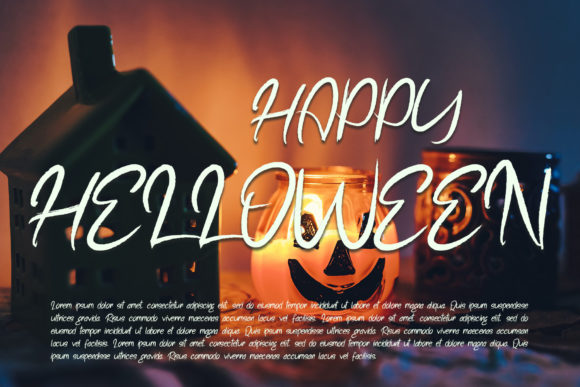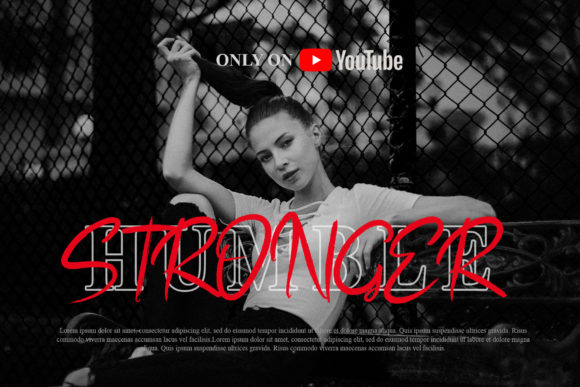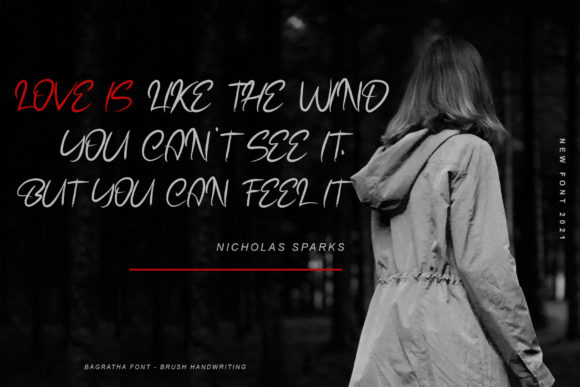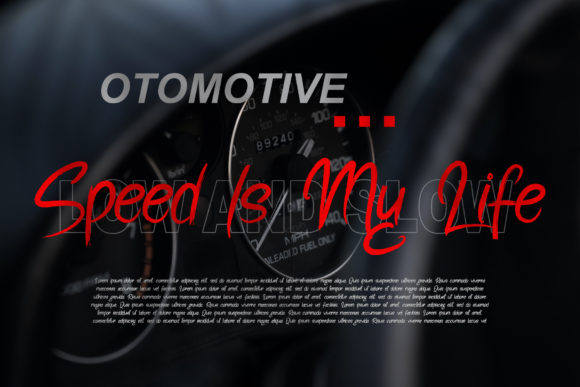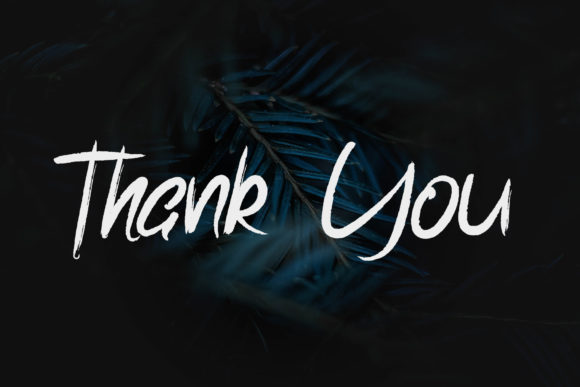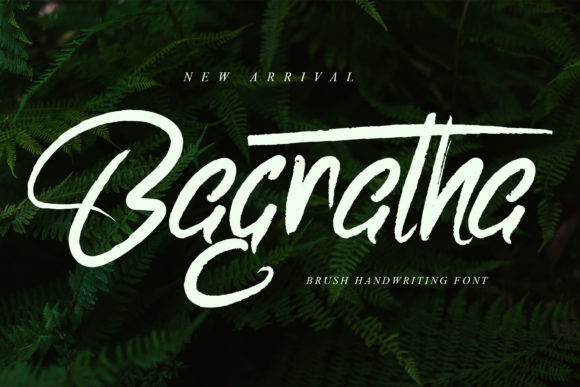
Bagratha Font: Elevate Your Designs with a Cool, Brushed Display Font
In the world of typography, a font can make or break a design. It’s the foundation upon which the entire visual aesthetic is built. For designers and crafters looking to add a unique touch to their creations, the Bagratha font is an excellent choice. This cool, brushed display font has the potential to elevate any project, regardless of the topic or theme. In this article, we’ll dive into the world of Bagratha font, exploring its features, benefits, and uses.
What is Bagratha Font?
Bagratha font is a stylish, brushed display font designed to add a touch of personality to any design. Its unique, hand-crafted aesthetic gives it a distinctive look that’s sure to grab attention. The font’s brushed texture adds a sense of warmth and tactility, making it perfect for designs that require a human touch.
Key Features of Bagratha Font
- Cool and Brushed Texture: The Bagratha font boasts a cool, brushed texture that gives it a unique and stylish look.
- Display Font: Designed specifically as a display font, Bagratha is perfect for headlines, titles, and other attention-grabbing elements.
- Versatile: Whether you’re working on a logo, brochure, or website, Bagratha font can be used for a wide range of design projects.
- Easily Readable: Despite its decorative nature, Bagratha font is surprisingly easy to read, making it a great choice for designs that require a balance of style and substance.
Benefits of Using Bagratha Font
So, why choose Bagratha font for your next design project? Here are just a few benefits of using this versatile font:
- Adds Personality to Your Design: Bagratha font’s unique, hand-crafted aesthetic allows you to add a touch of personality to your designs.
- Instantly Elevates Your Work: With Bagratha font, you can instantly elevate your designs from ordinary to extraordinary.
- Perfect for Branding and Marketing Materials: The font’s stylish, attention-grabbing aesthetic makes it perfect for branding and marketing materials, such as logos, brochures, and business cards.
How to Use Bagratha Font in Your Designs
Using Bagratha font in your designs is easy. Here are a few tips to get you started:
- Pair it with a Simple Font: For maximum impact, pair Bagratha font with a simple, sans-serif font for body text.
- Use it for Headlines and Titles: Bagratha font is perfect for headlines and titles, where its attention-grabbing aesthetic can really shine.
In conclusion, Bagratha font is a cool, brushed display font that’s perfect for designers and crafters looking to add a unique touch to their creations. Its versatile aesthetic and easily readable design make it suitable for a wide range of projects, from branding and marketing materials to logos and website headers. With Bagratha font, you can instantly elevate your designs and add a touch of personality to your work.